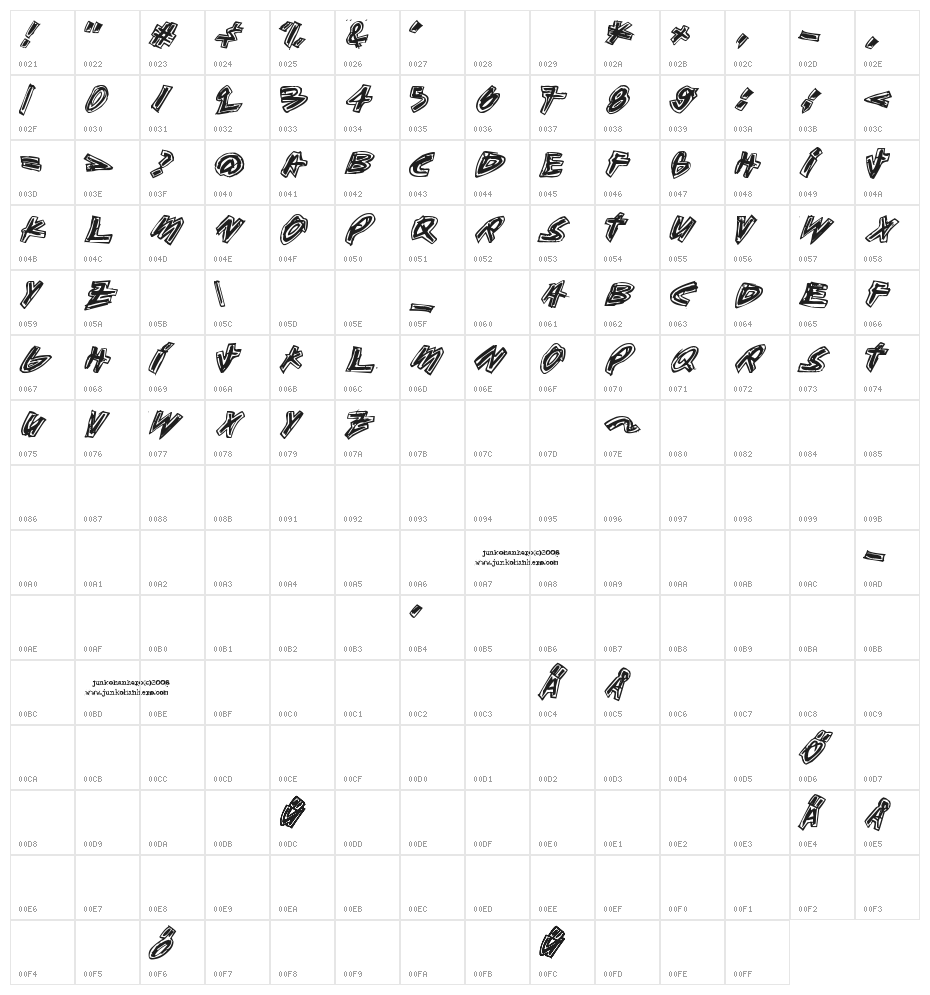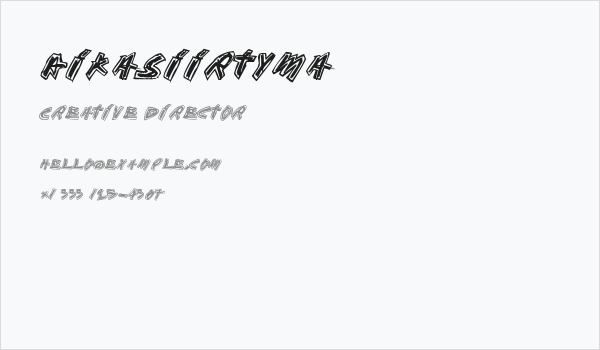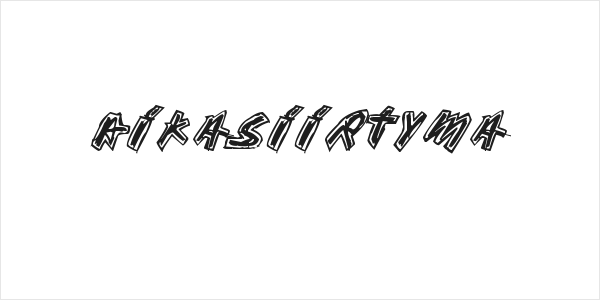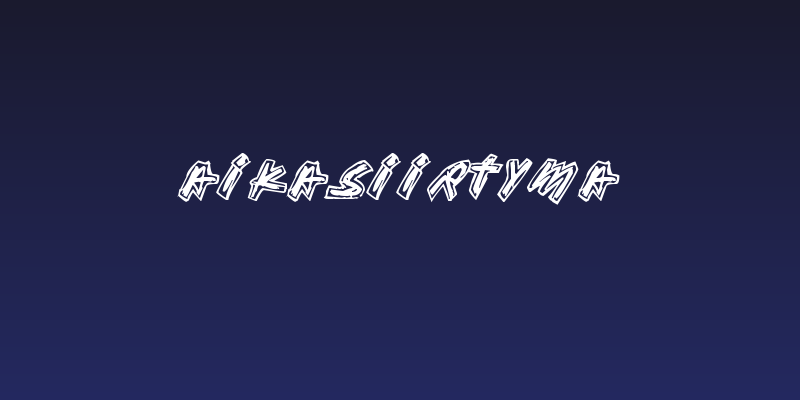
Aikasiirtyma Font
Aikasiirtyma Description
This font features a bold, dynamic style with a graffiti-like appearance. The characters are outlined with a thick black stroke, giving them a three-dimensional effect. Each letter has a unique, angular design, creating a sense of movement and energy. The uppercase and lowercase letters maintain a consistent style, while the numbers and special characters complement the overall aesthetic. This font is highly decorative, making it ideal for projects that require a strong visual impact.
AIKASIIRTYMA UPPERCASE
AIKASIIRTYMA LOWERCASE
AIKASIIRTYMA OTHER CHARS
| Overall Style | Modern, Urban |
| Proposed Projects | Ideal for street art designs, urban-themed posters, music album covers, and edgy branding projects. |